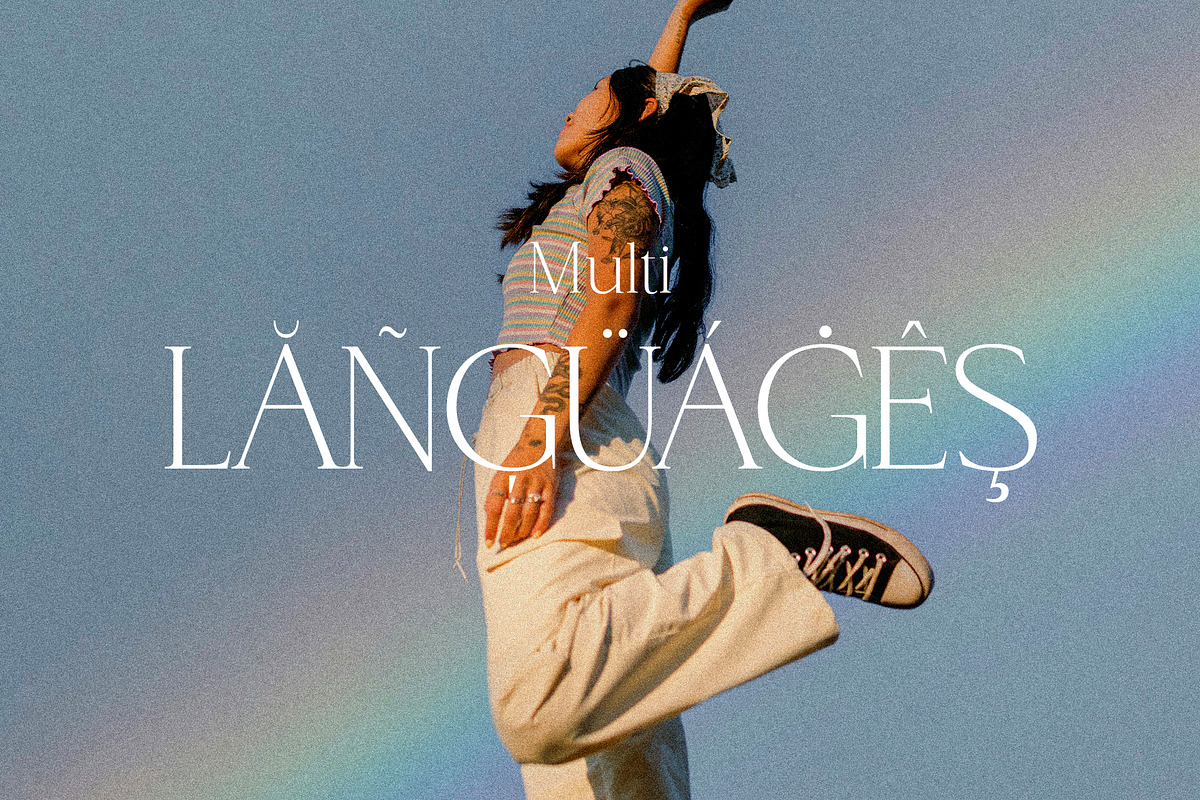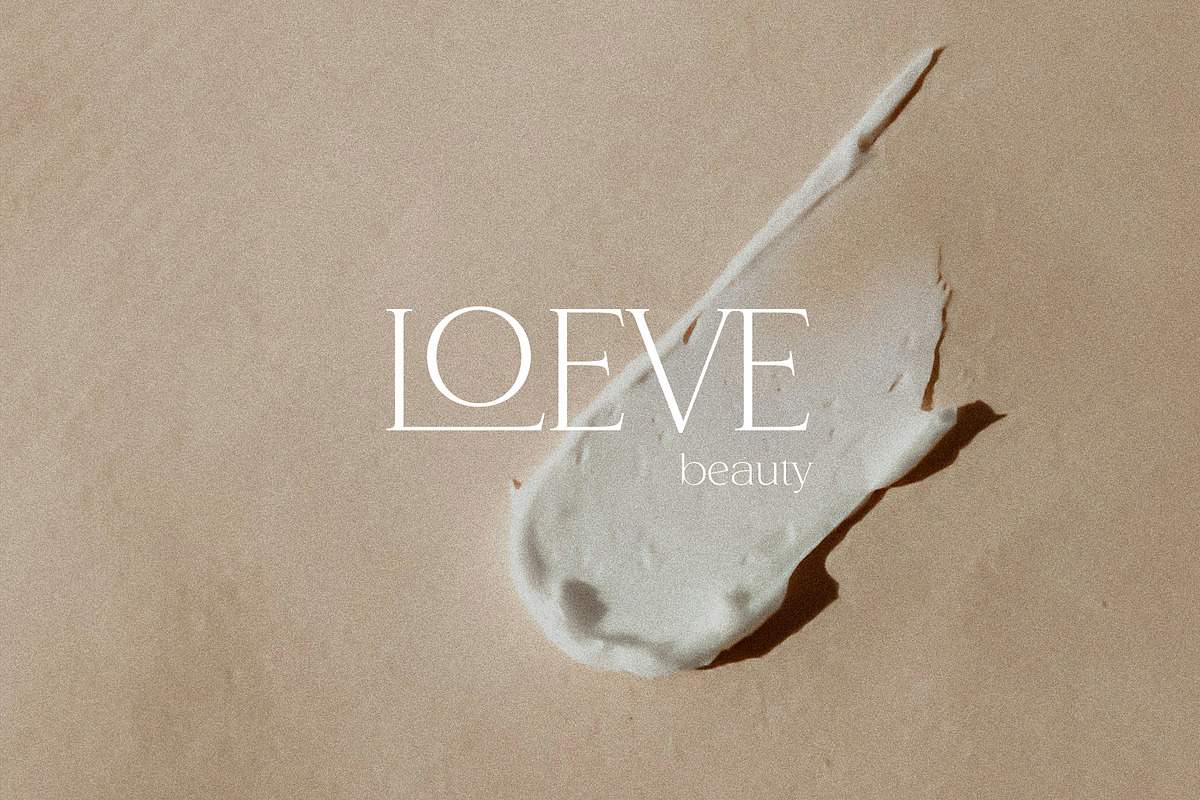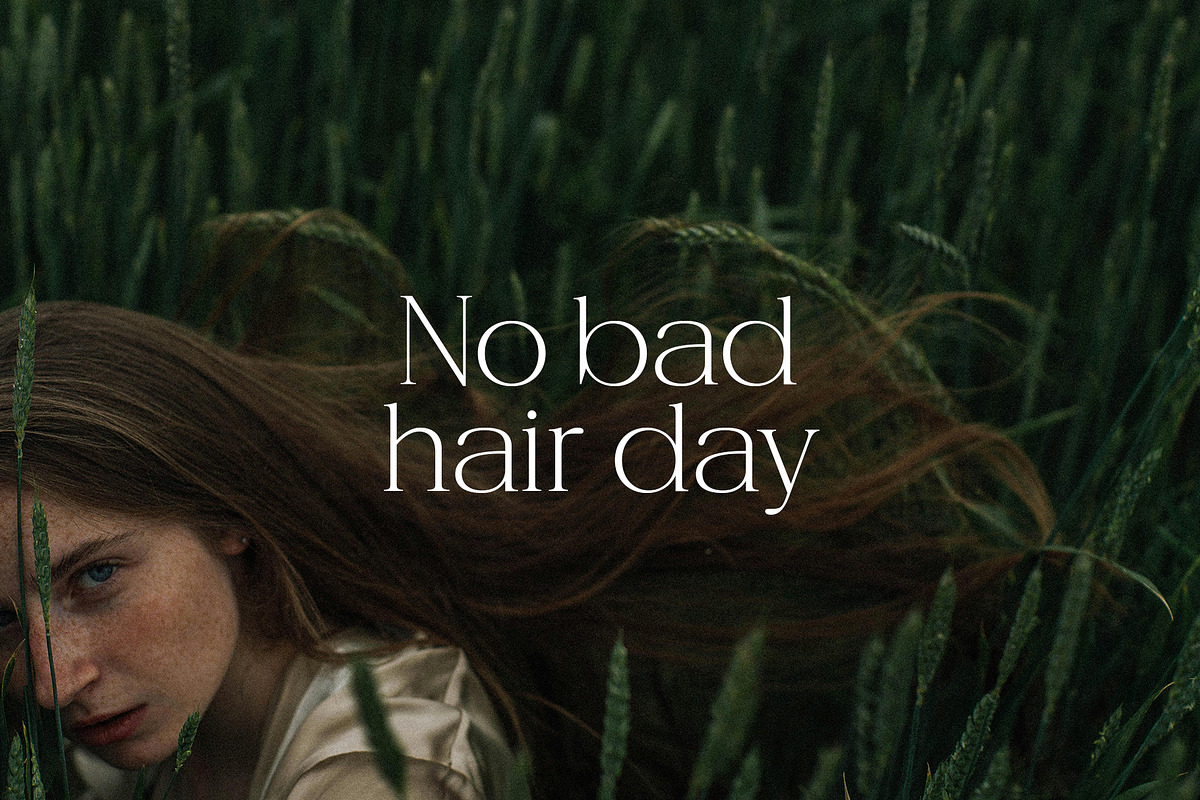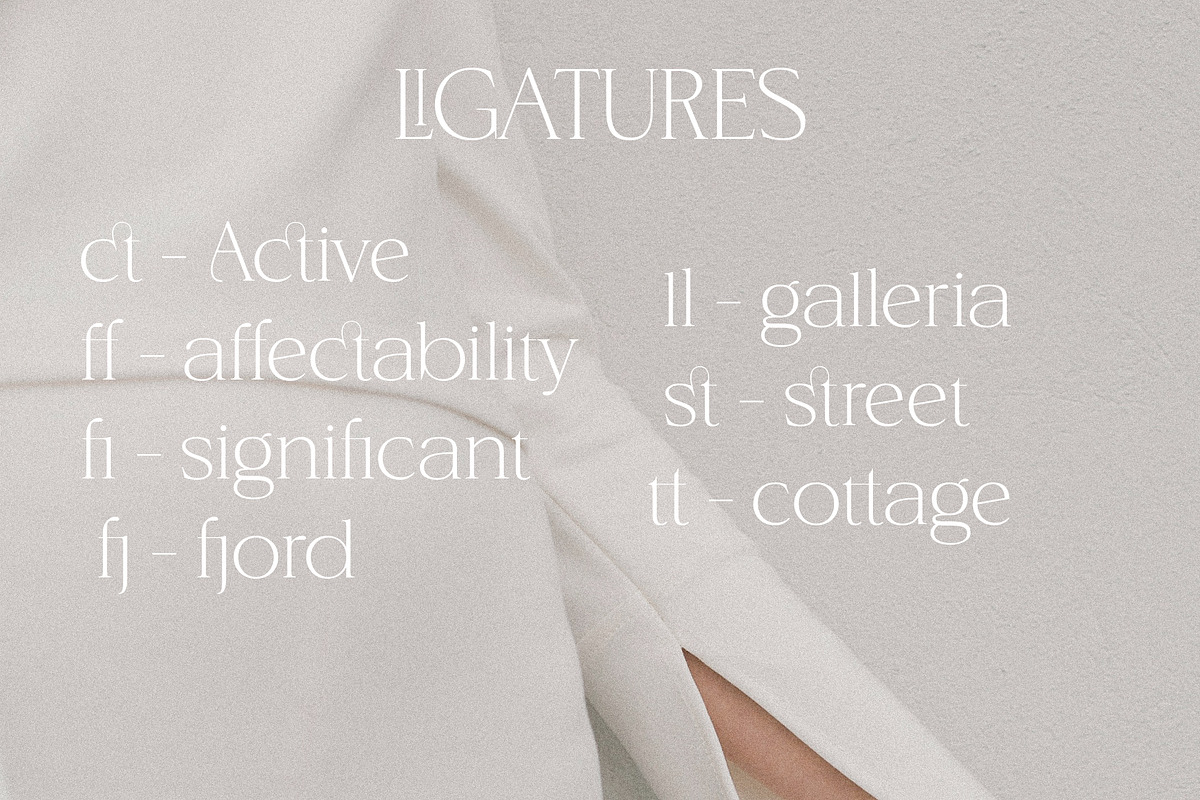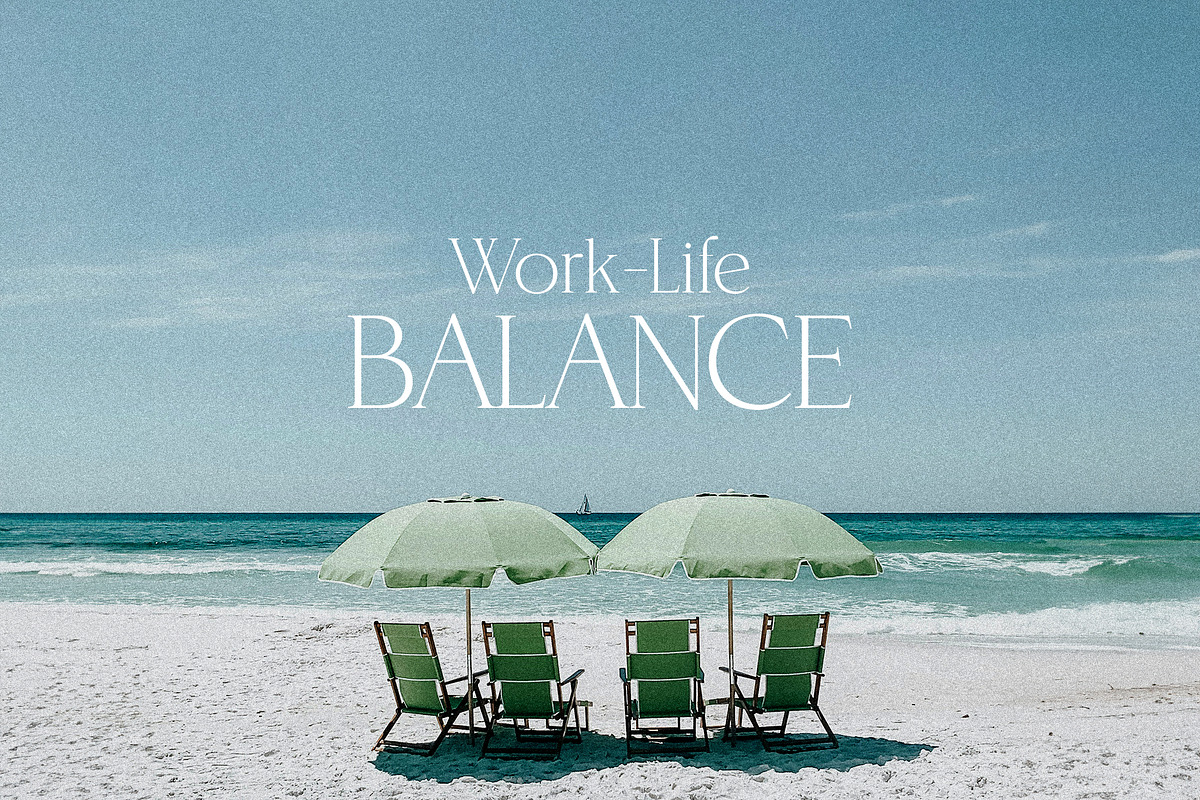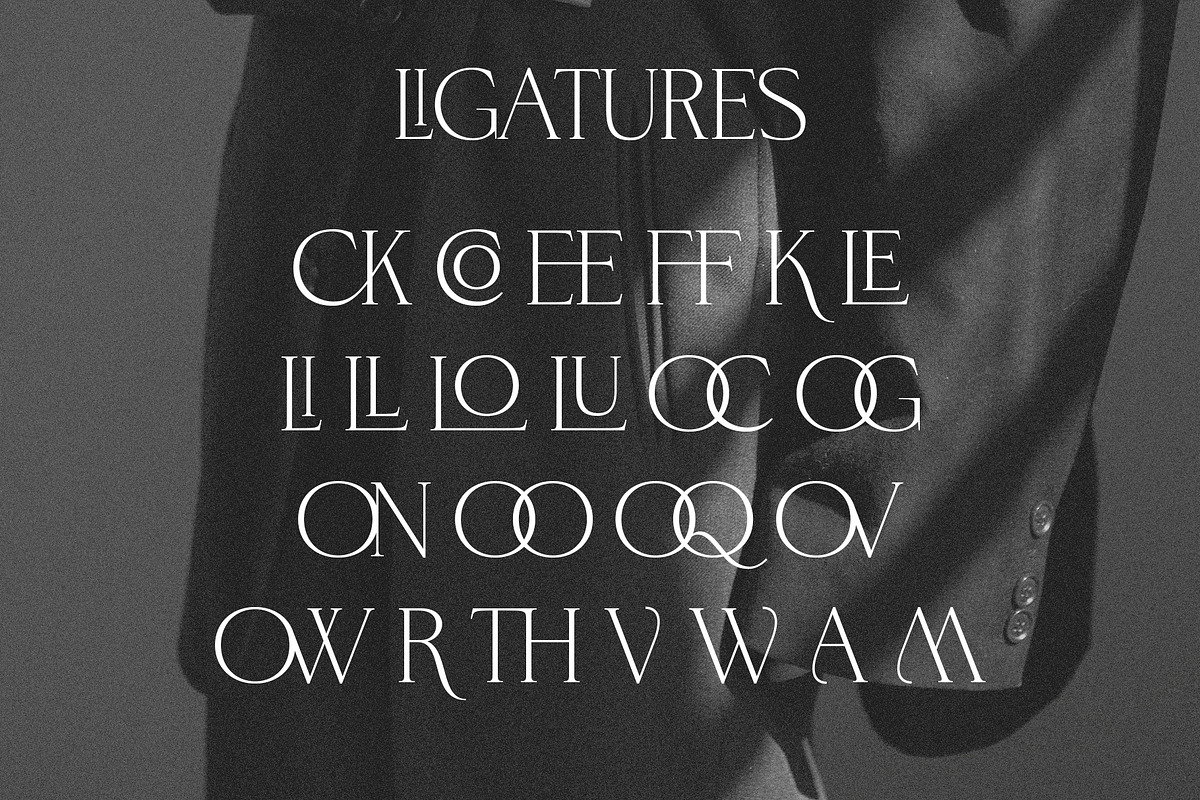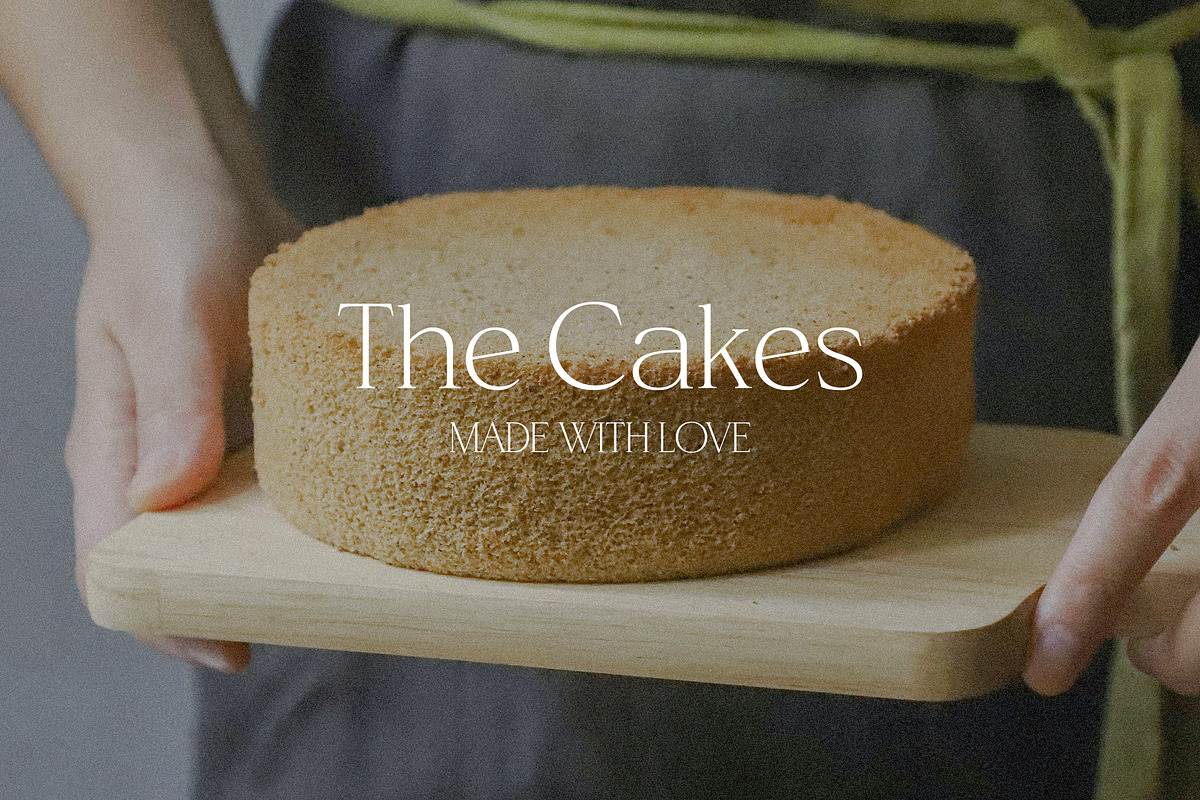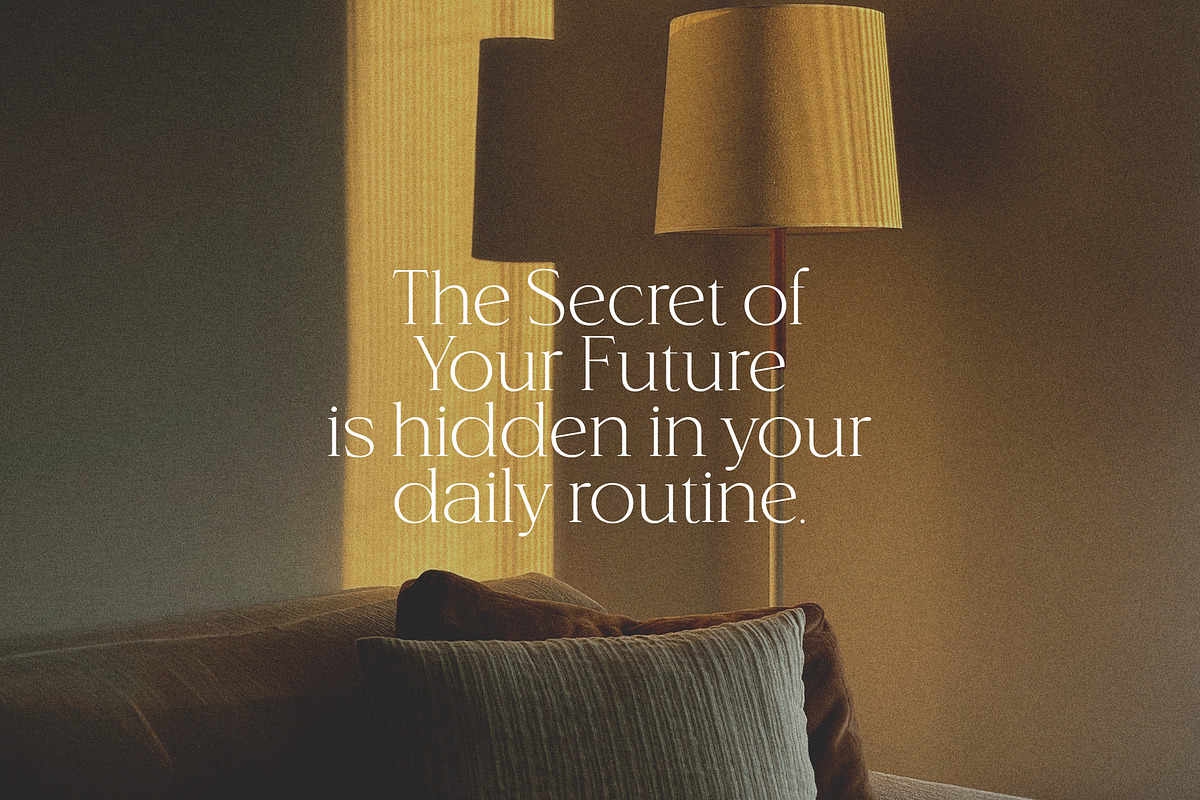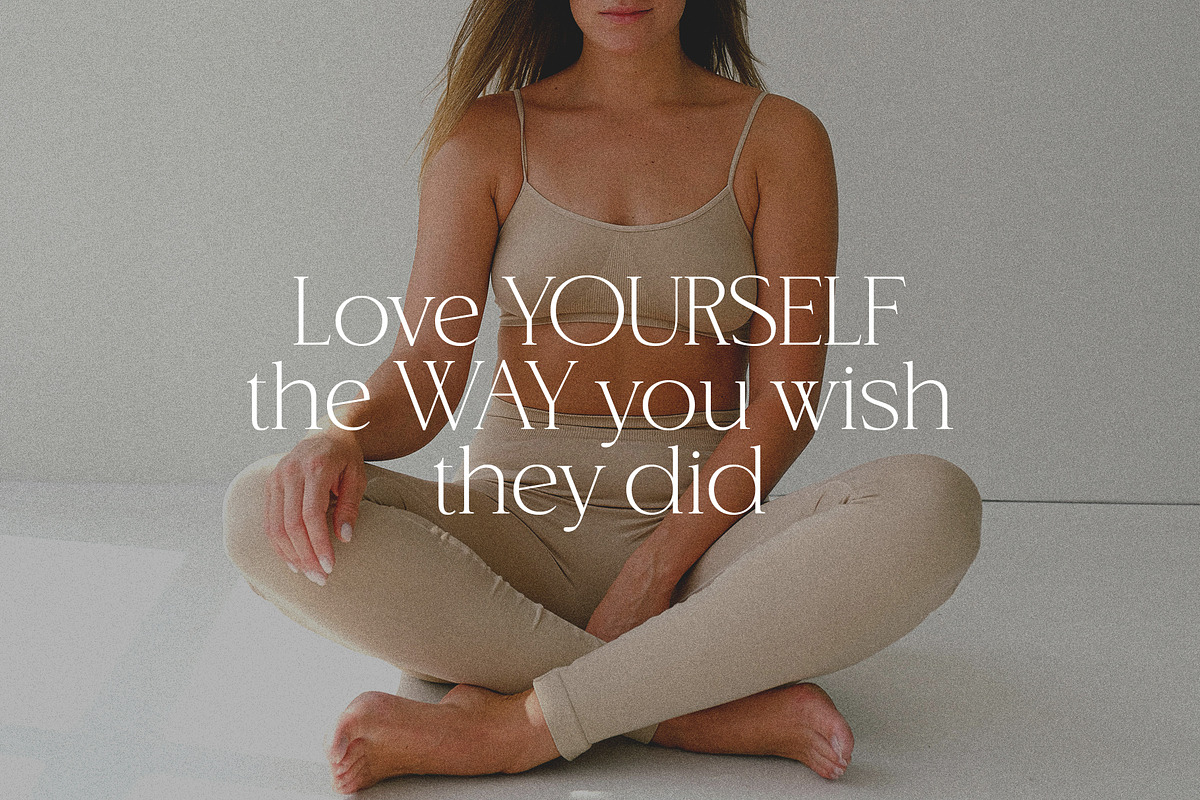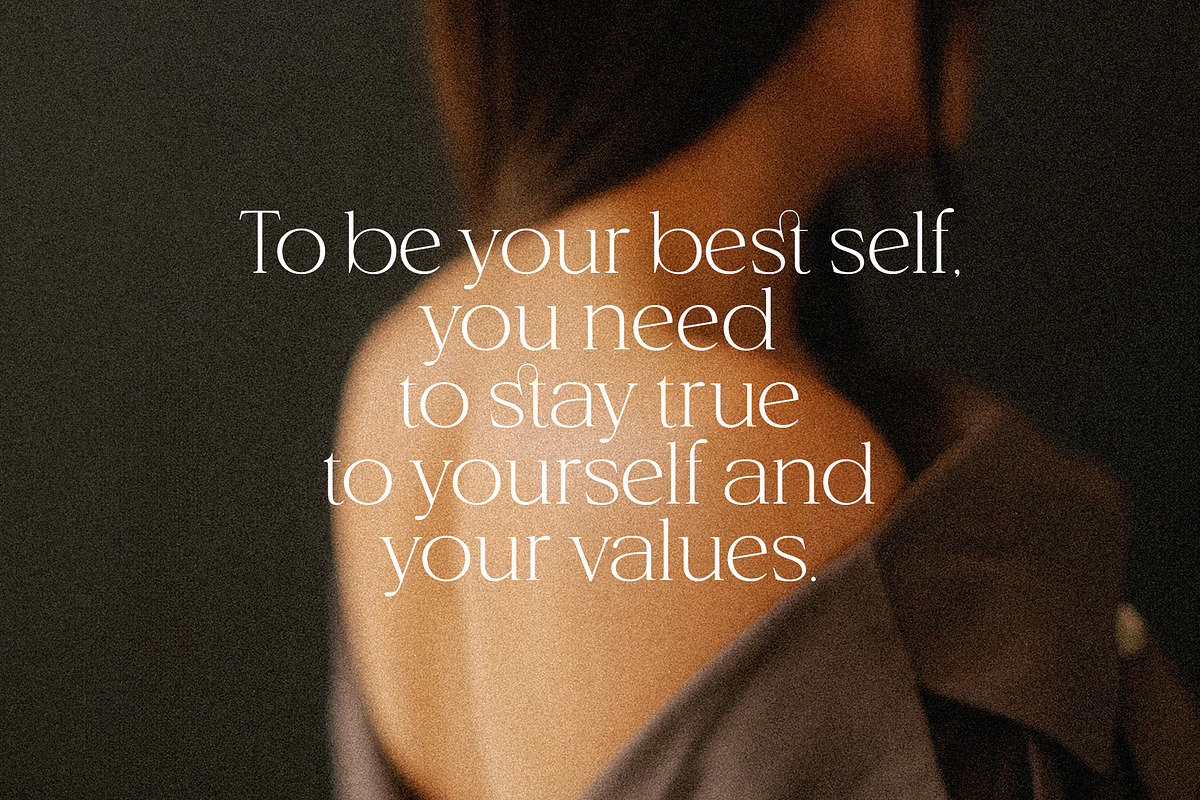
Pretty Sweet - Modern serif font
Pretty Sweet - Modern serif font!
This is a perfect font for any project. Be sure to click on the image to see all elements. This product was created to help you make your digital images even more beautiful and unique.
This pack can be used to create anything as you wish, logos invitation cards, wedding cards, birthday cards, home decor, packaging holiday gifts, party decorations, print on fabrics and so much more.